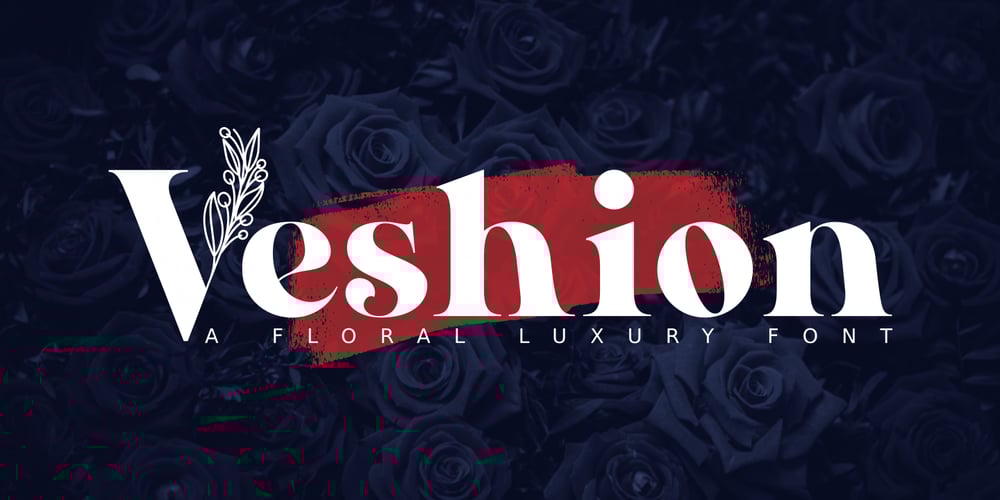
Al Veshion
Al Veshion font
Al Veshion Font Family was designed by Linggar Sundoro and published by Aluyeah Studio. Al Veshion contains 1 styles and family package options. Al Veshion is a floral luxury font. It’s a fashionable, elegant, decorative font. Floral ornament letters are ideal for your wedding monograms and logos, fashion product, herb, back to nature vibe, organic vibe, and many more. Use this font for wedding invitations, branding, packaging, magazines, florist shops, social media, restaurant menus, greeting cards, headers and many more.This typeface features 190+ characters with some language adaption that is guaranteed to give your project a competitive edge. Al Veshion features: OpenType support, Multilingual support (15 languages) and is PUA Encoded.Easy to use alternates. It’s OpenType support but you can easily call alternates character using special combination like A.2 B.2 a.2 v.2 so you don’t need special software.Thanks for checking out Al Veshion. I really hope you enjoy using it! If you have any questions I’d be more than happy to answer them, just send me a message!